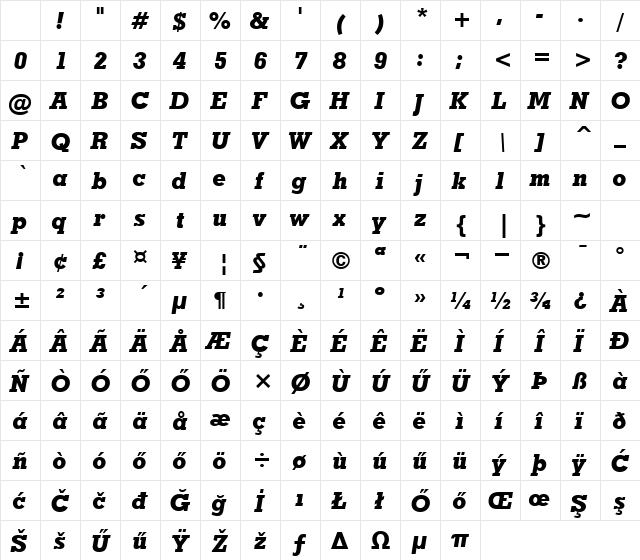
Complete H_GeoSlab 703 X BT BoldItalic glyph index. Displaying only characters natively supported by H_GeoSlab 703 X BT BoldItalic font.
H_GeoSlab 703 X BT features prominent, blocky serifs that give it a confident, grounded presence - equally at home in editorial settings and bold branding work. The slanted form adds forward momentum and visual energy. Its bold stroke weight gives it real presence on the page.
Pro Tip: Use H_GeoSlab 703 X BT for headlines and subheadings where its slab serifs can make an impression. It also holds up well in mid-size body copy thanks to its sturdy construction.